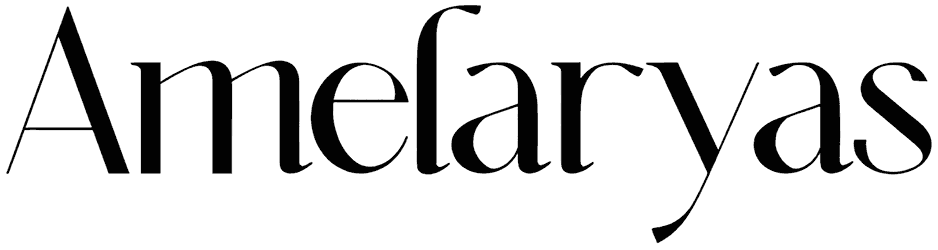
Amelaryas Font
Are you examining assertive lettering that catches the viewer’s attention at once? Well, the fantastic Amelaryas font is a desirable choice, while its textures have been adjusted to fashion in many zones, and this trait makes this luxury font appealing for use on magazine covers, apps, postcards, etc.